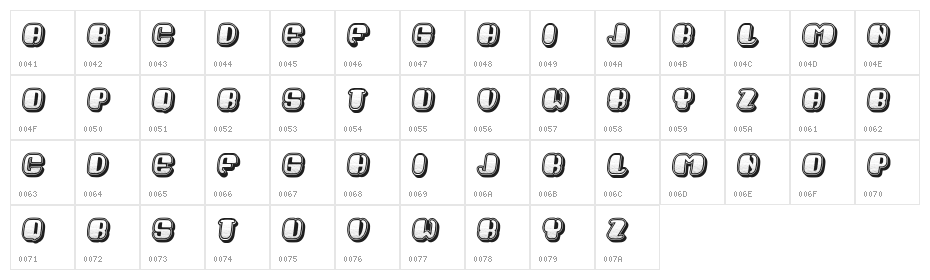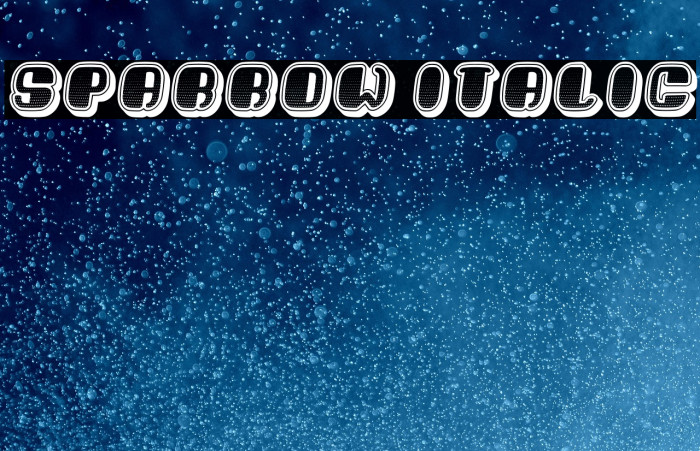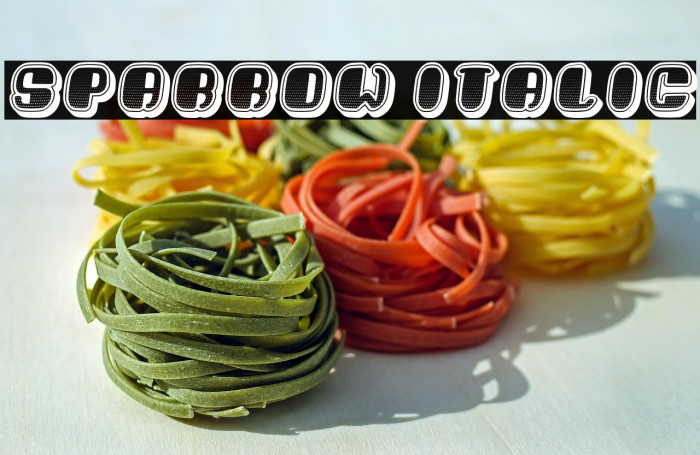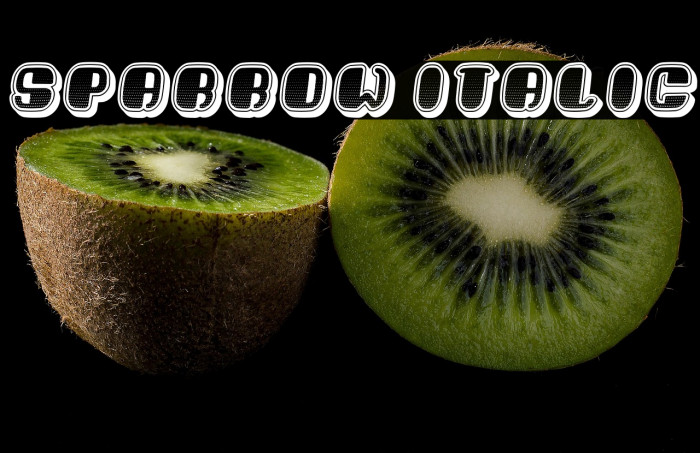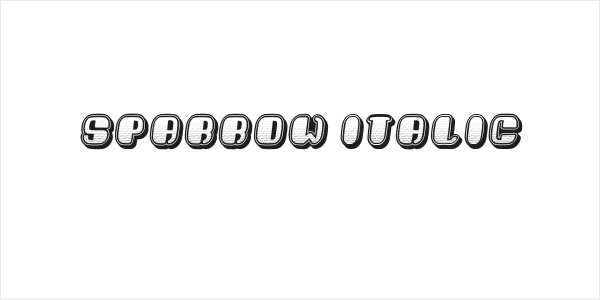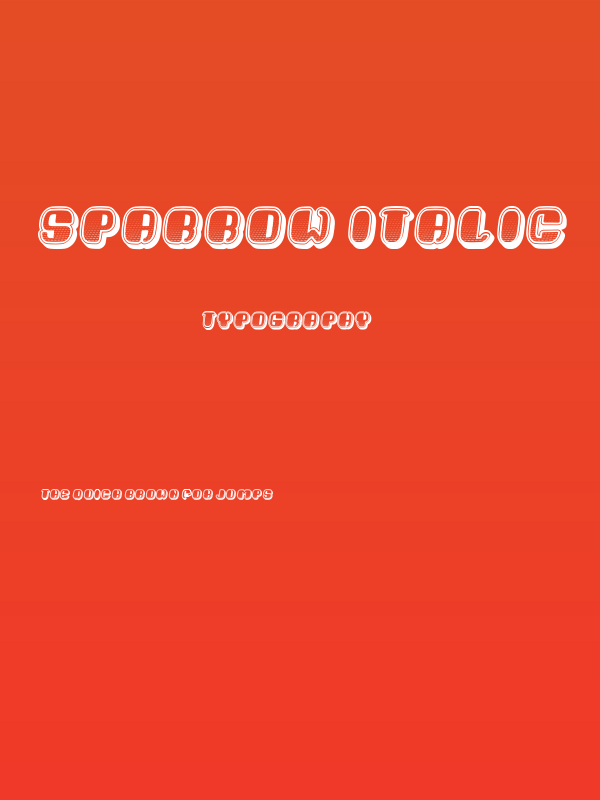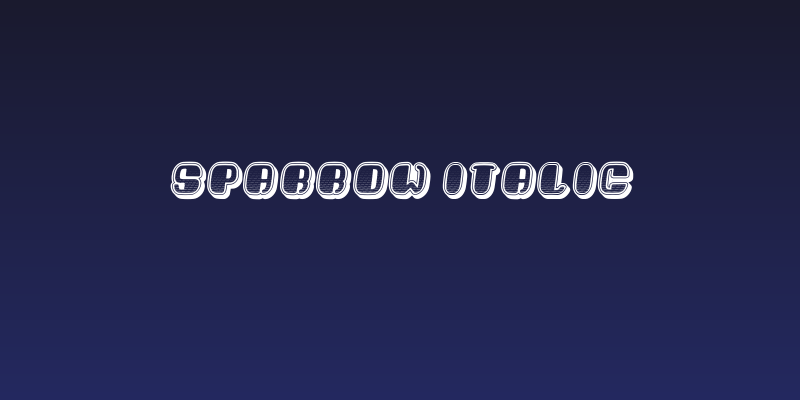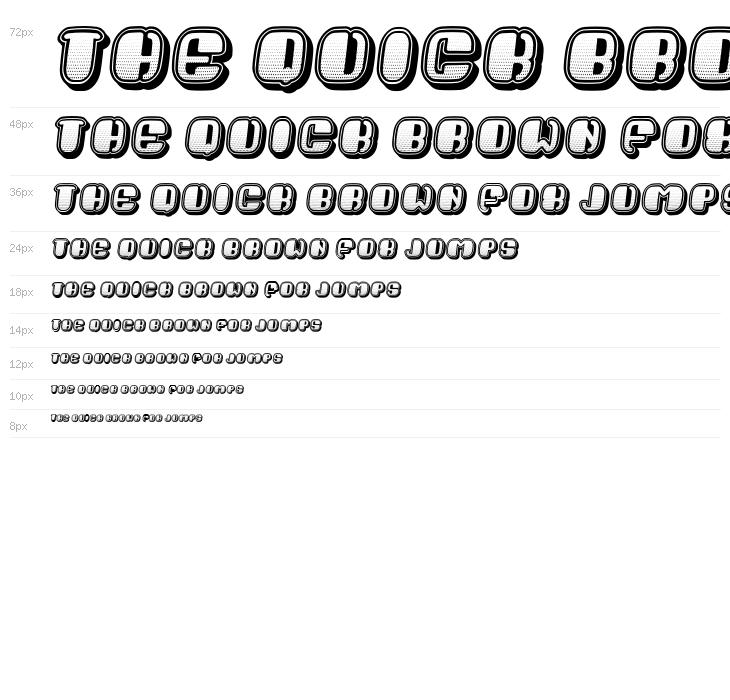
Sparrow Italic Font
Sparrow Italic Description
This font features a bold, playful design with a three-dimensional effect, achieved through a combination of thick outlines and inner shading. The letters are rounded and have a bubble-like appearance, giving them a fun and dynamic feel. The use of halftone shading within each character adds depth and texture, making the font stand out. The overall style is reminiscent of comic book lettering, with a modern twist that makes it suitable for eye-catching designs. The characters are evenly spaced, ensuring readability while maintaining a cohesive look.
Proposed ProjectsIdeal for comic books, children's books, posters, and playful branding projects.